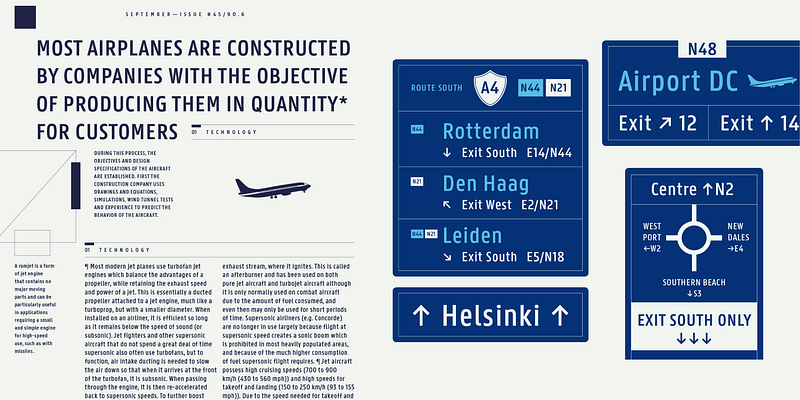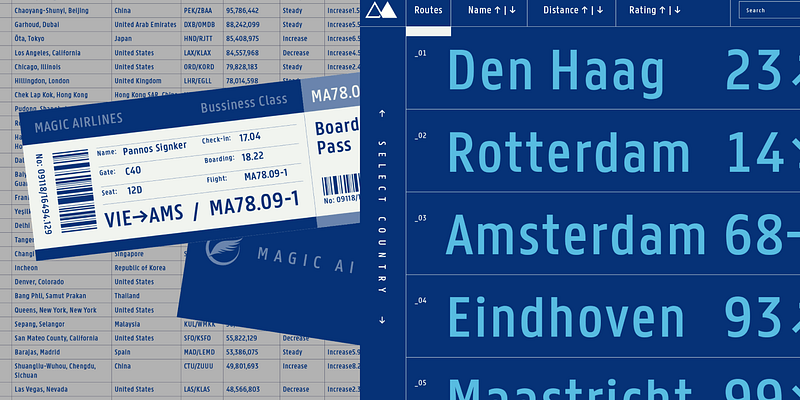
Panno is a typeface optimized for signage. With two optical sizes, Signage and Text, Panno manages to save space and maintain optimal legibility with its open counters, narrow proportions, and very large x-height. Its simple letterforms and minimal stroke contrast bring optimal functionality for a wayfinding typeface. Panno Sign is available in two variants — Normal and Rounded — each in two styles for negative and positive applications to achieve the same optical weight. And the text in six weights and accompanying italics.